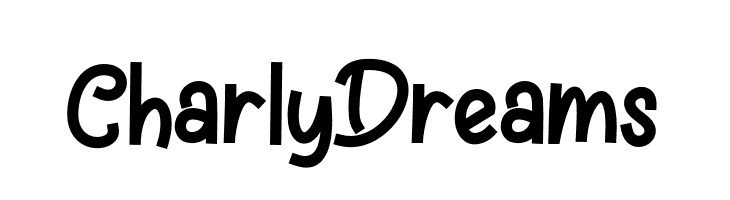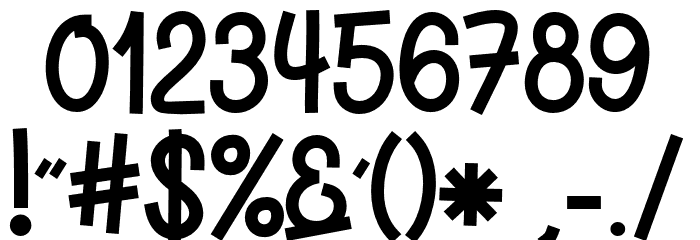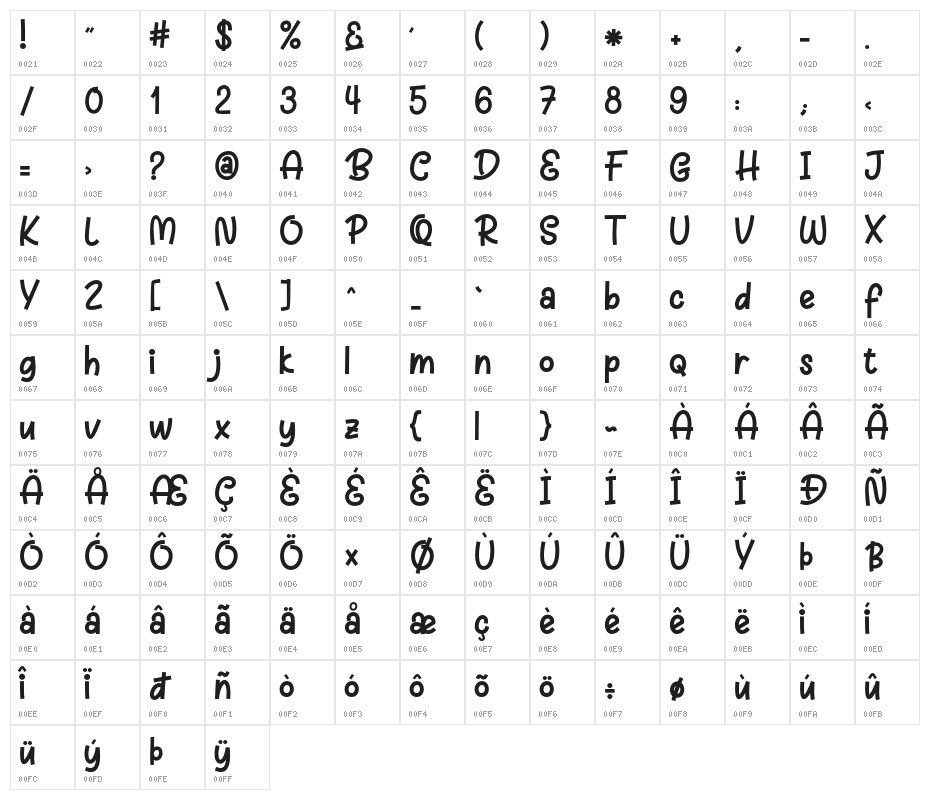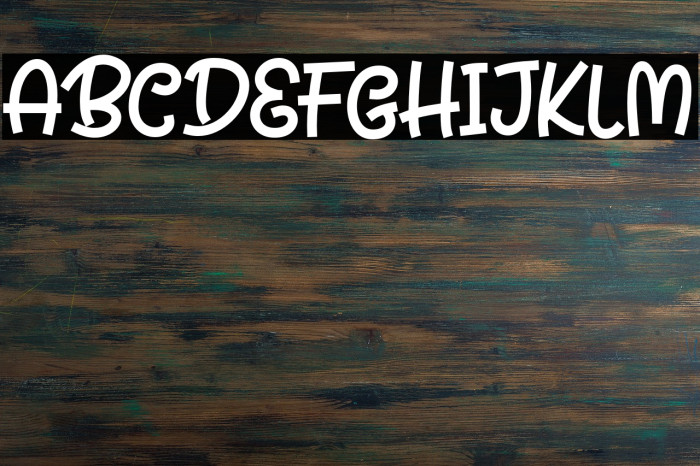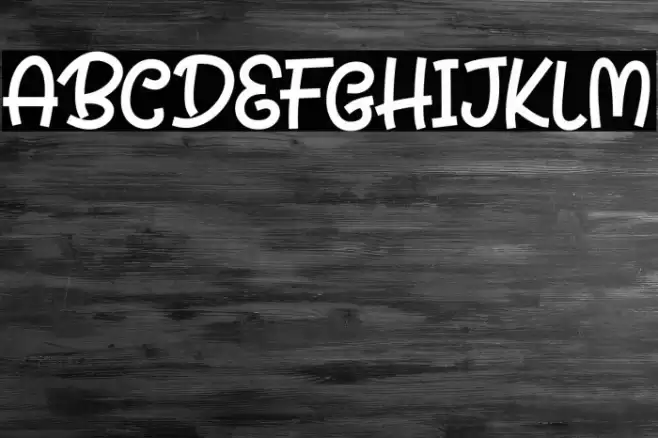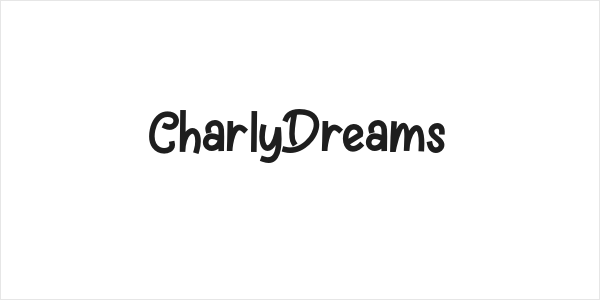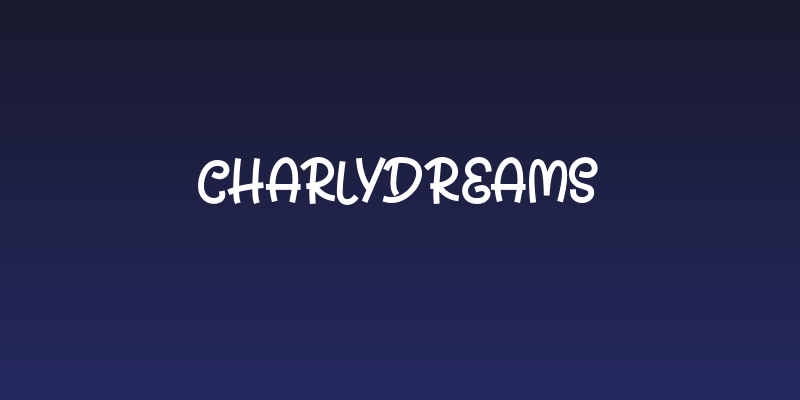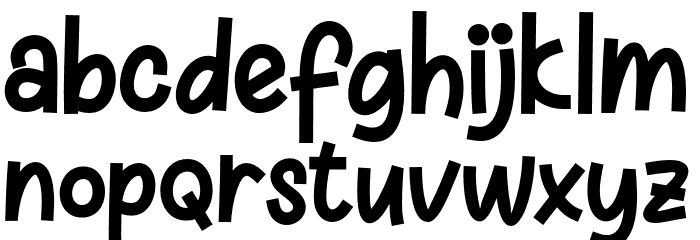
CharlyDreams Font
CharlyDreams Description
This playful and whimsical font features a bold and rounded style with a hand-drawn appearance. The characters are slightly irregular, giving it a casual and friendly look. The uppercase letters are tall and slightly narrow, while the lowercase letters maintain a consistent height with a smooth flow. Numbers are bold and easy to read, matching the overall style of the alphabet. Special characters are creatively designed, adding to the font's unique personality. The font's informal style makes it suitable for projects that require a fun and approachable aesthetic.
| Proposed Projects | Ideal for children's books, playful branding, greeting cards, and casual posters. |